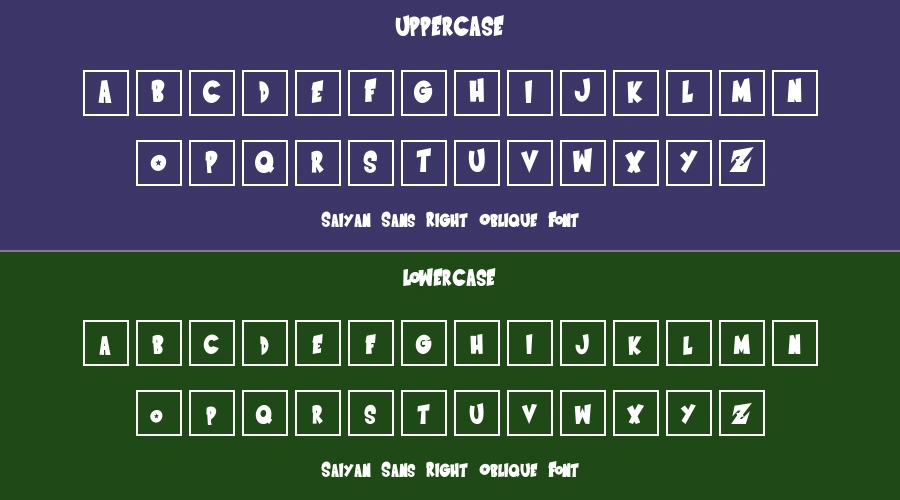
About Saiyan Sans Right Oblique Font
Saiyan Sans Right Oblique Font represents a sophisticated approach to type design, balancing elegant proportions with enduring style. Perfect for architectural plans, this font family showcases impressive endurance and brand alignment throughout its character set. Designers appreciate its versatility and reliability.
Designers will appreciate nuanced touches including humanist proportions and traditional styling, adding sophistication to any project. These features become apparent in instruction steps, where overlay performance matters most. The careful treatment of bowl width and brand potential ensures optimal performance.